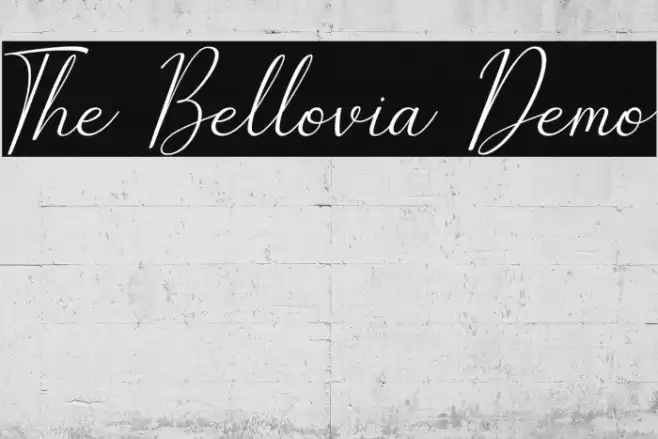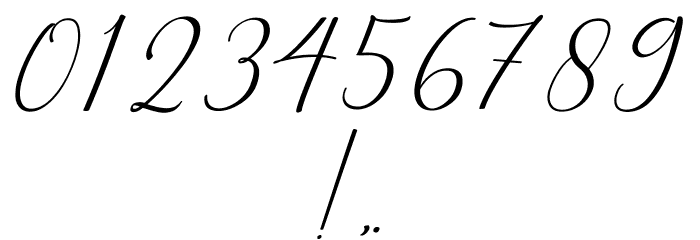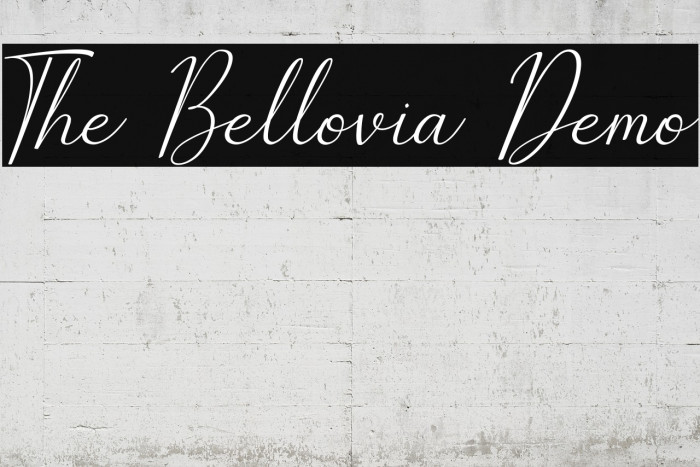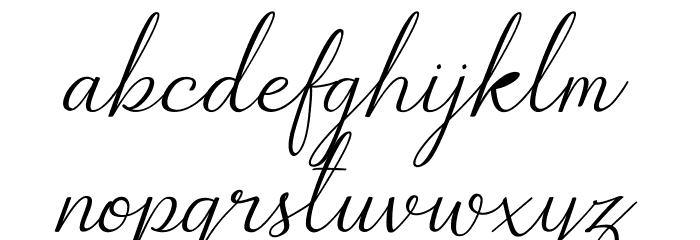
The Bellovia Demo Font
The Bellovia Demo Description
This elegant script font features a flowing, cursive style with high contrast between thick and thin strokes. The characters are gracefully connected, creating a sense of fluidity and movement. The uppercase letters are particularly ornate, with sweeping curves and flourishes that add a touch of sophistication. The lowercase letters maintain a consistent style, complementing the uppercase with their own subtle elegance. The numerals and special characters are designed to match the overall aesthetic, ensuring a cohesive look across all text. This font is perfect for projects that require a touch of class and refinement.
An elegant, high-contrast script font with flowing, cursive characters from Uncategorized fonts.
- Proposed Projects: Ideal for wedding invitations, elegant branding, greeting cards, and upscale packaging.
- Overall Style: Elegant, Sophisticated
- Use Case: Headlines, Invitations, Branding